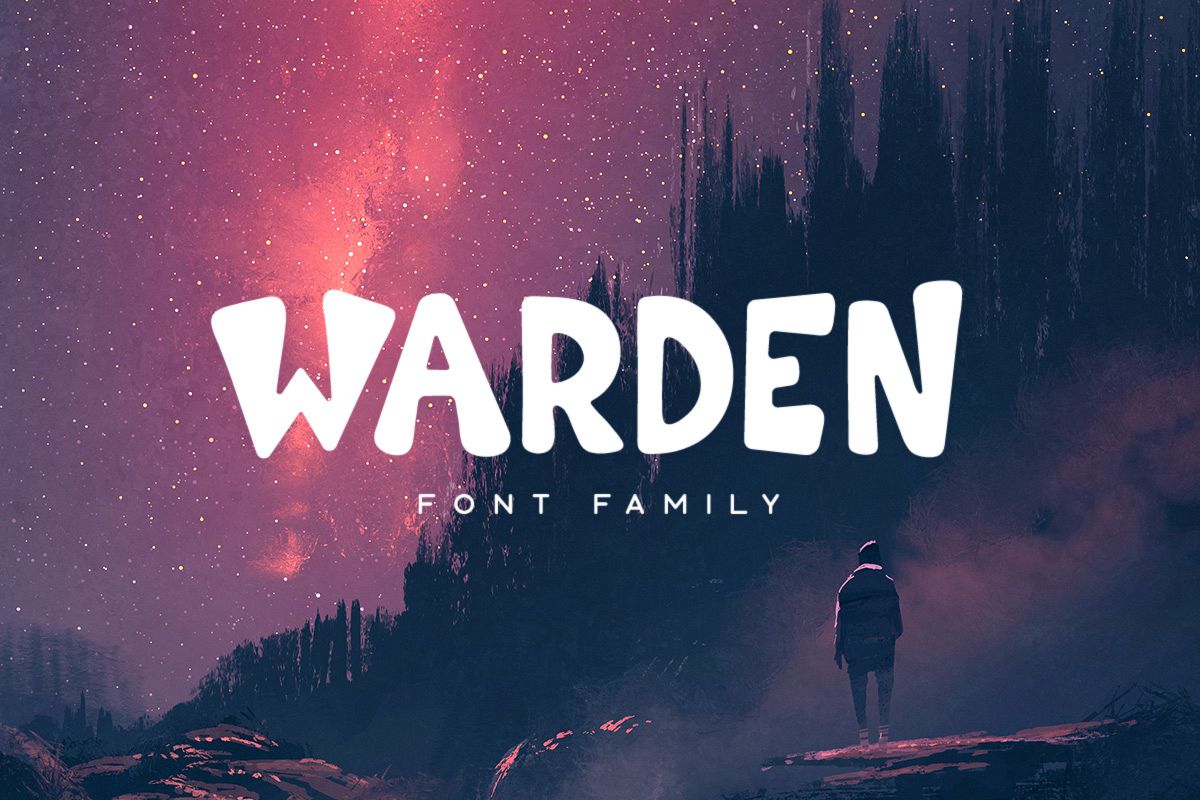
Warden Typeface
Warden Regular
Warden Outline
Warden Shadow
Warden Rough
Warden is a bold, rounded irregular typeface with 4 distinct style options. It includes uppercase multilingual letters, numbers and punctuation.
Warden Typeface